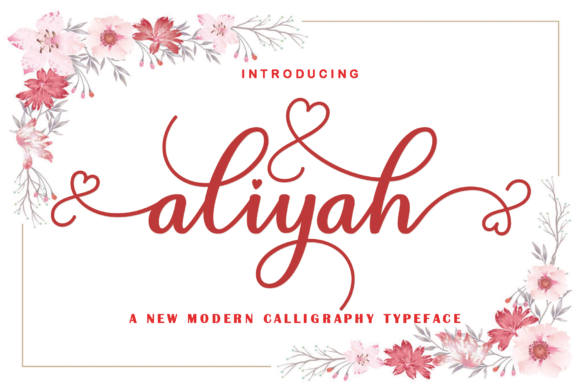
Behold the Aliyah Font - A Timeless Masterpiece for Your Creative Expression!
In a world of monotonous fonts, the Aliyah Font emerges like a breath of fresh air, an extraordinary creation that will uplift your projects to unprecedented heights. This elegant script font, meticulously crafted by the renowned Naqsya.Co, is a testament to timeless classic calligraphy, seamlessly blending the charm of tradition with a modern, contemporary touch. Prepare to be captivated by its impeccable form, where each letter dances with grace and poise, creating an aura of sophistication that will leave your audience spellbound.
Embark on a typographic journey with the Aliyah Font, where your words will transform into visually stunning masterpieces. Its carefully balanced strokes, neither too thin nor too thick, harmonize perfectly to enhance the beauty of your projects, whether you're crafting logos, branding materials, wedding invitations, or any other design endeavor. The Aliyah Font possesses an innate ability to elevate your creations, adding a touch of elegance and refinement that will leave a lasting impression.
Unleash the limitless potential of the Aliyah Font, a font family that adapts effortlessly to your every need. Its versatility knows no bounds, seamlessly transitioning from formal to playful, classic to contemporary. Whether you're composing heartfelt love letters, designing eye-catching social media posts, or creating impactful marketing materials, the Aliyah Font will effortlessly elevate your message, capturing hearts and minds with its timeless appeal.
Immerse yourself in the world of the Aliyah Font, where your creative vision takes center stage. Feel the exhilaration as your ideas come to life, adorned with the beauty and grace of this extraordinary font. Let your imagination soar, knowing that the Aliyah Font will faithfully accompany you on your creative journey, transforming your words into visual masterpieces that resonate with your audience. Experience the joy of creating with a font that truly understands the art of communication, transcending mere words and evoking emotions that linger long after the page is turned.